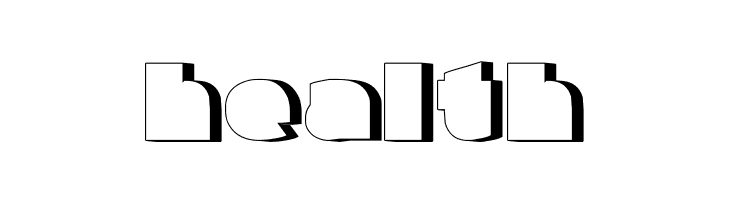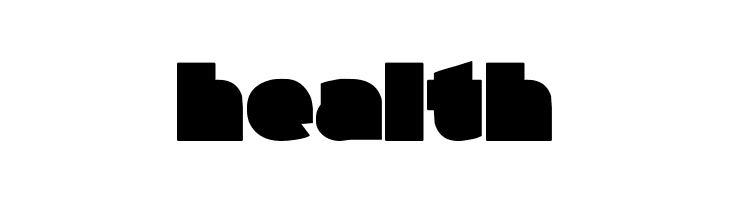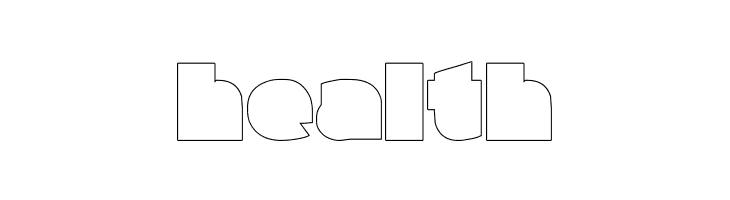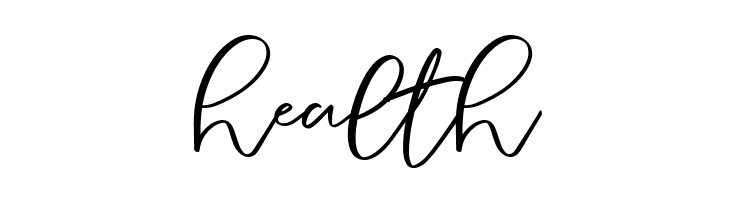
( Alit Design - Alit Suarnegara - www.alitdesign.net )
A lively and fluid script font with interconnected cursive strokes.
( Walter E Stewart )
( GNU FreeFont - savannah.gnu.org/projects/freefont/ )
A clean, modern sans-serif font with uniform stroke width and excellent readability.
( PintassilgoPrints - www.pintassilgoprints.com )
A bold, geometric font with a shadow effect for a three-dimensional look.
( PintassilgoPrints - www.pintassilgoprints.com )
A bold, geometric display typeface with a strong, modern presence.
( PintassilgoPrints - www.pintassilgoprints.com )
A bold, geometric outline font with a modern and playful style.
A playful, modern comic-style font with an italic slant and smooth, rounded edges.
A playful, light, and italicized font with a modern and approachable style.